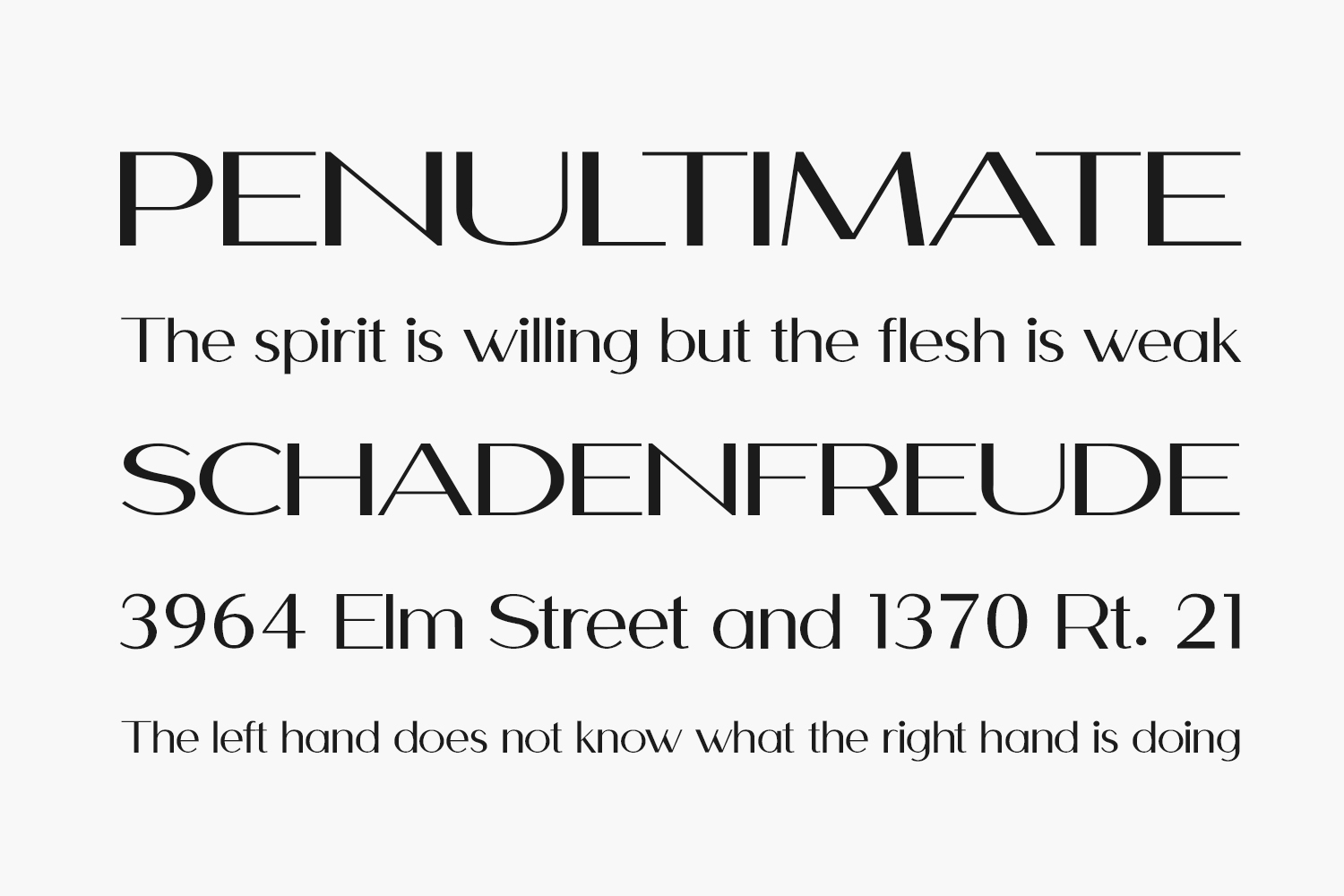
Brixanos Free Font is a casual sans serif font. It will look outstanding in any context, whether it’s being used on busy backgrounds or as a standalone headline. Brixanos Free Font was designed by UI Creative and is free for personal use only. Please purchase the full version for commercial use.